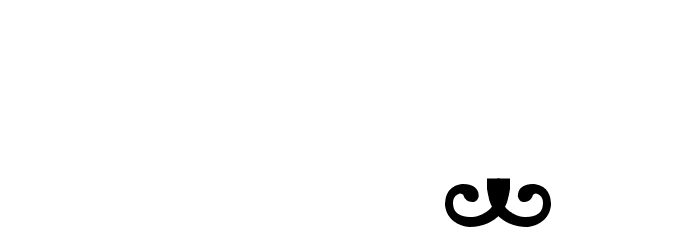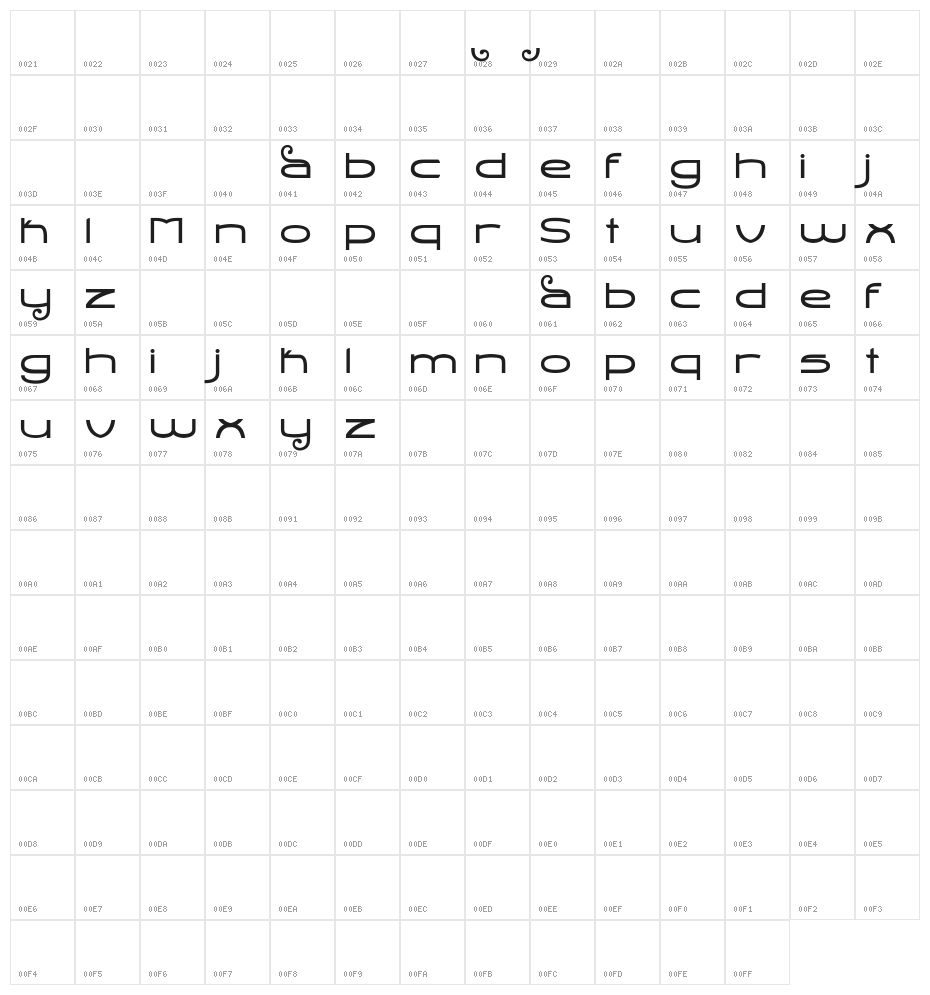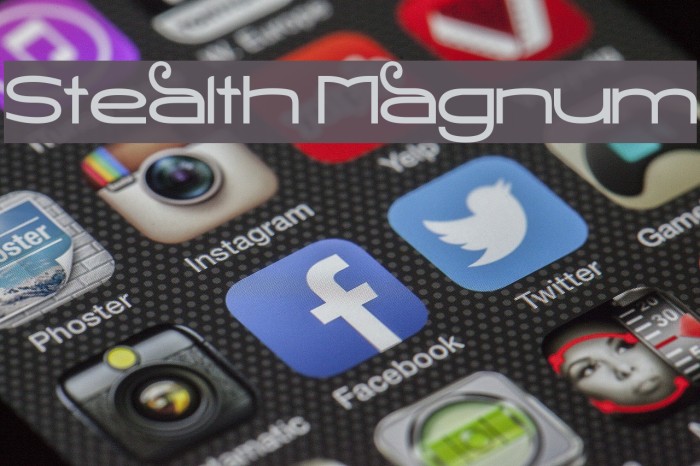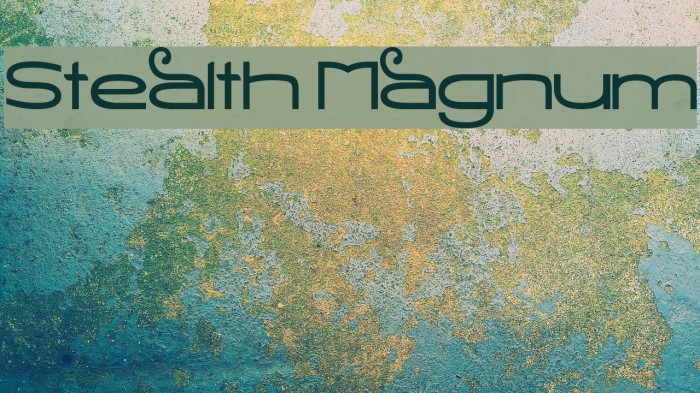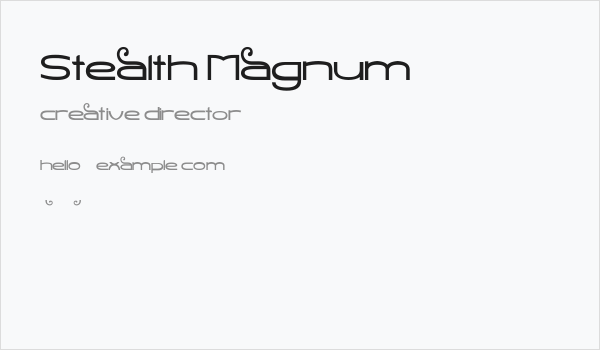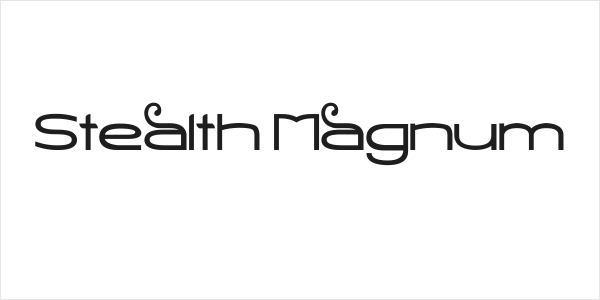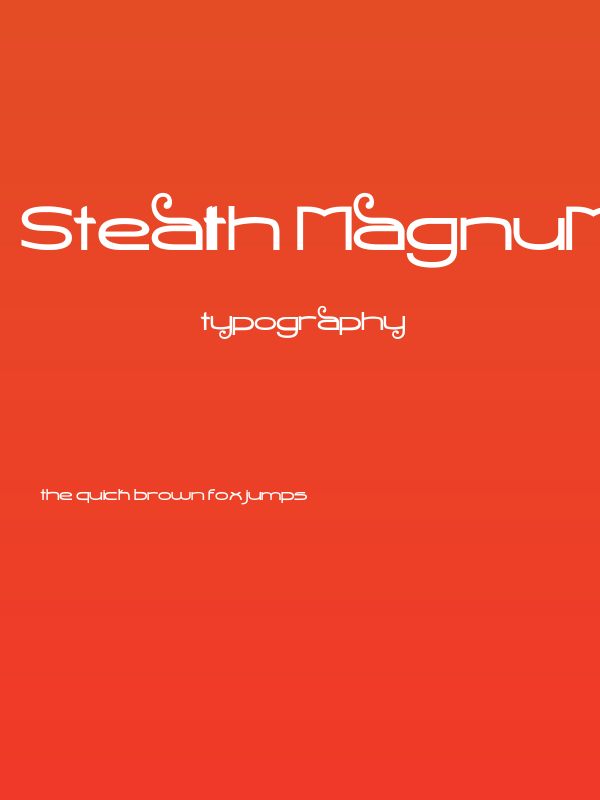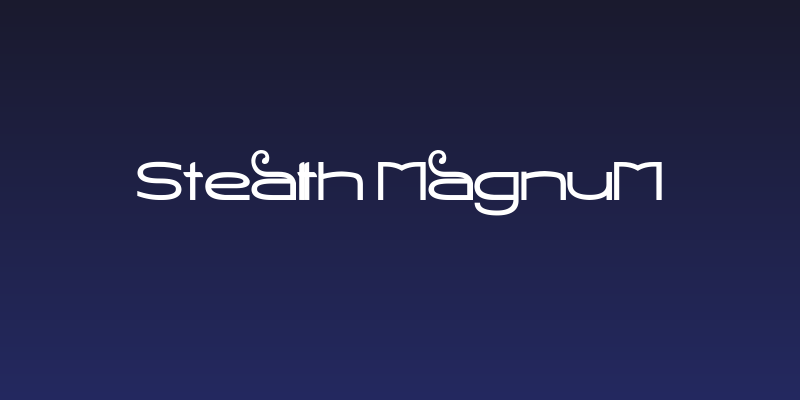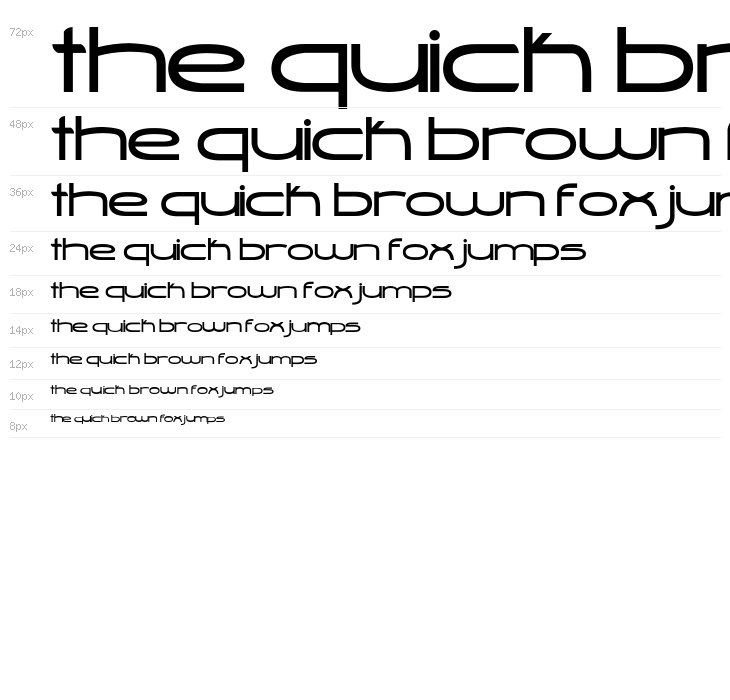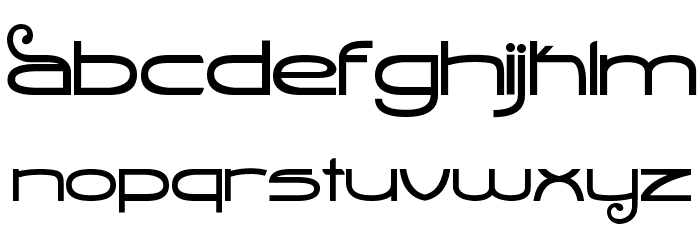
Stealth Magnum Font
Stealth Magnum Description
This font features a sleek, modern design with a futuristic flair. The characters are crafted with a geometric precision, showcasing rounded edges and a consistent stroke width that gives it a clean and polished look. The uppercase letters are bold and assertive, while the lowercase letters maintain a harmonious balance with their slightly condensed forms. The font's unique style is further emphasized by its minimalistic approach, making it ideal for projects that require a contemporary and sophisticated touch. The special characters are elegantly integrated, maintaining the overall aesthetic of the font.
| Use Case | Logos, Headlines, Branding |
| Proposed Projects | Ideal for technology branding, modern advertising, and innovative product packaging. |